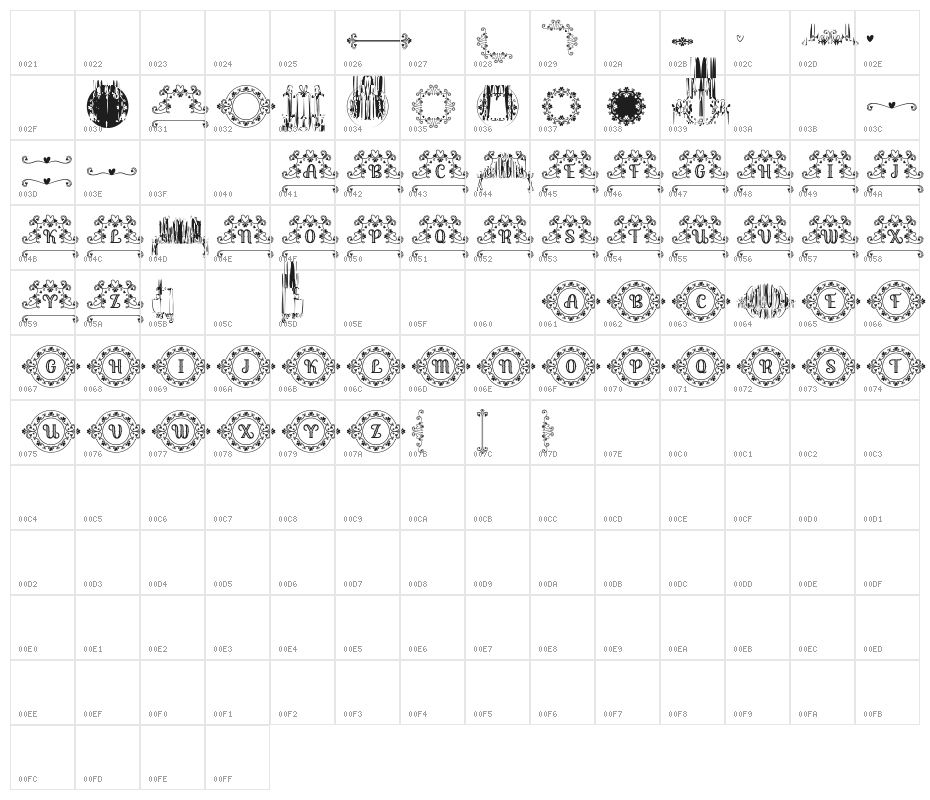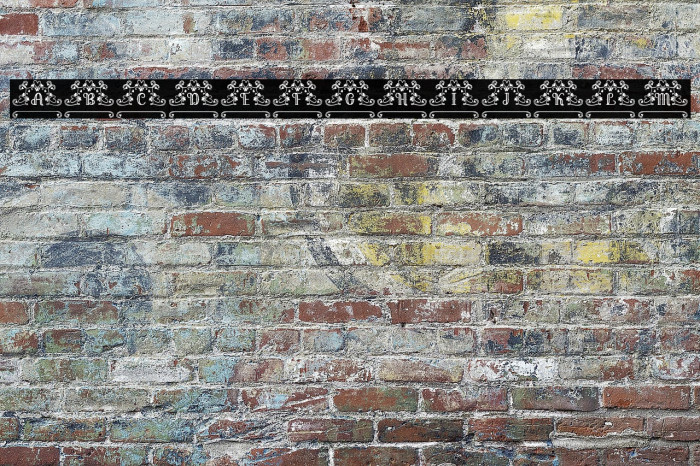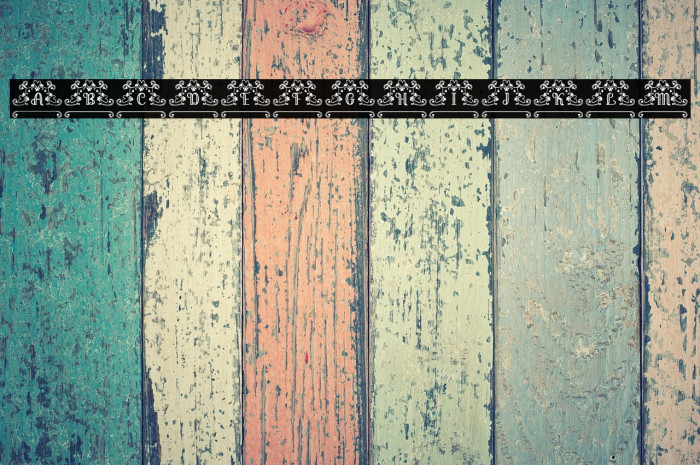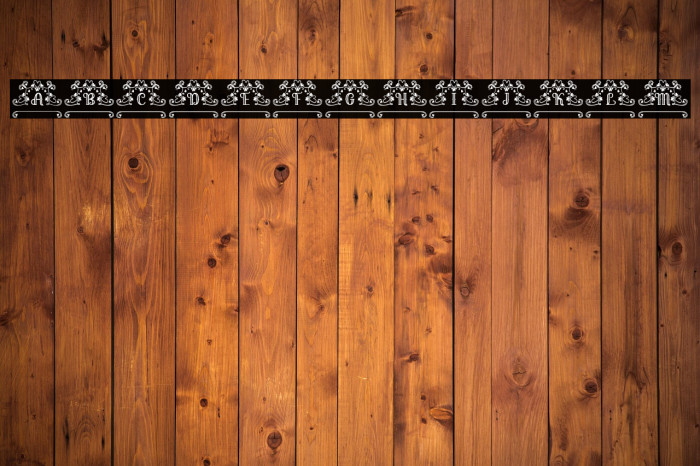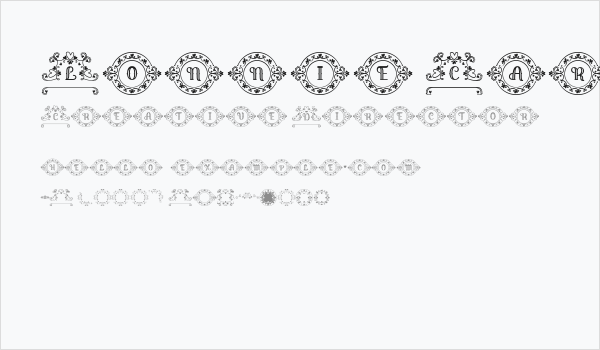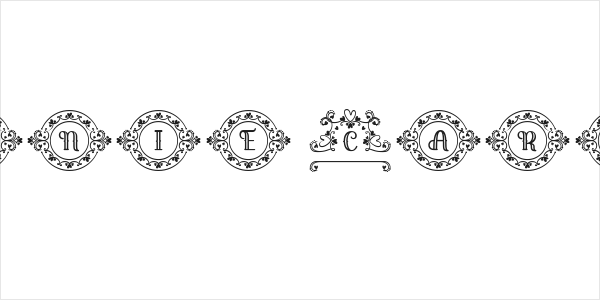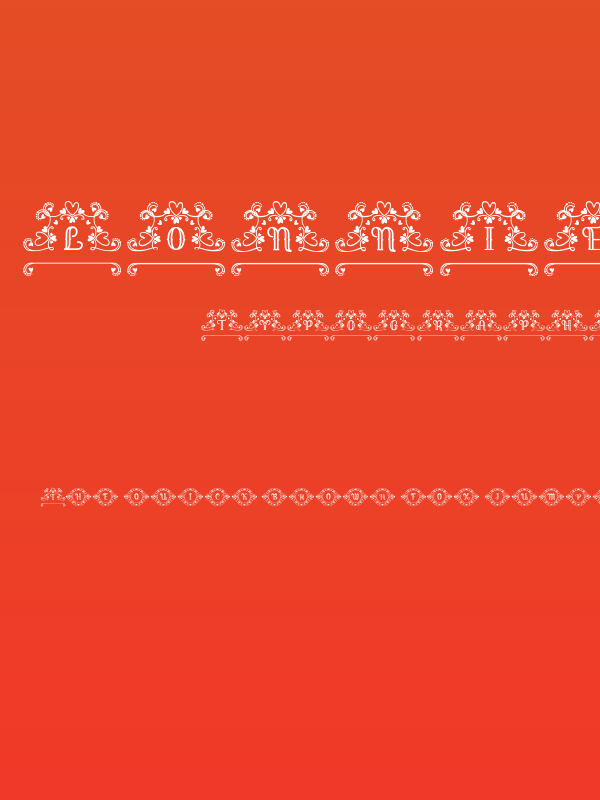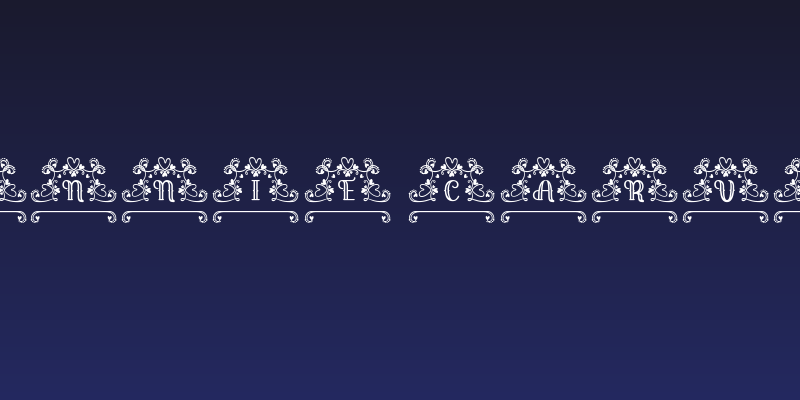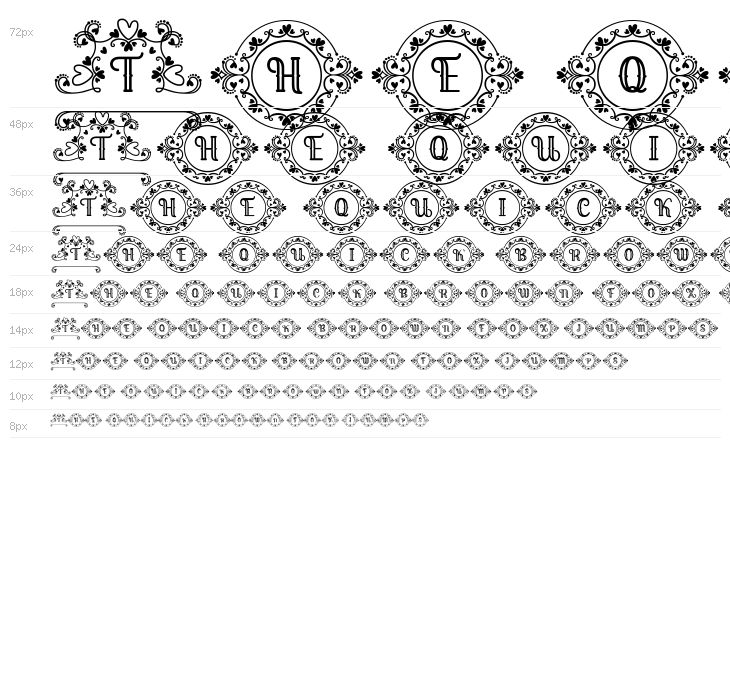
Lonnie Carved Font
Lonnie Carved Description
This font features an ornate and decorative style, characterized by intricate carvings and embellishments surrounding each letter. The uppercase letters are enclosed in circular frames with detailed floral and vine-like patterns, giving it a vintage and elegant appearance. The font is highly decorative, making it suitable for projects that require a touch of sophistication and artistry. The intricate designs suggest a handcrafted quality, reminiscent of traditional engraving or wood carving techniques. This font is ideal for creating a luxurious and classic aesthetic.
| Overall Style | Vintage, Decorative |
| Use Case | Logos, Invitations, Decorative Headlines |
| Proposed Projects | Ideal for wedding invitations, luxury branding, vintage-themed designs, and decorative signage. |